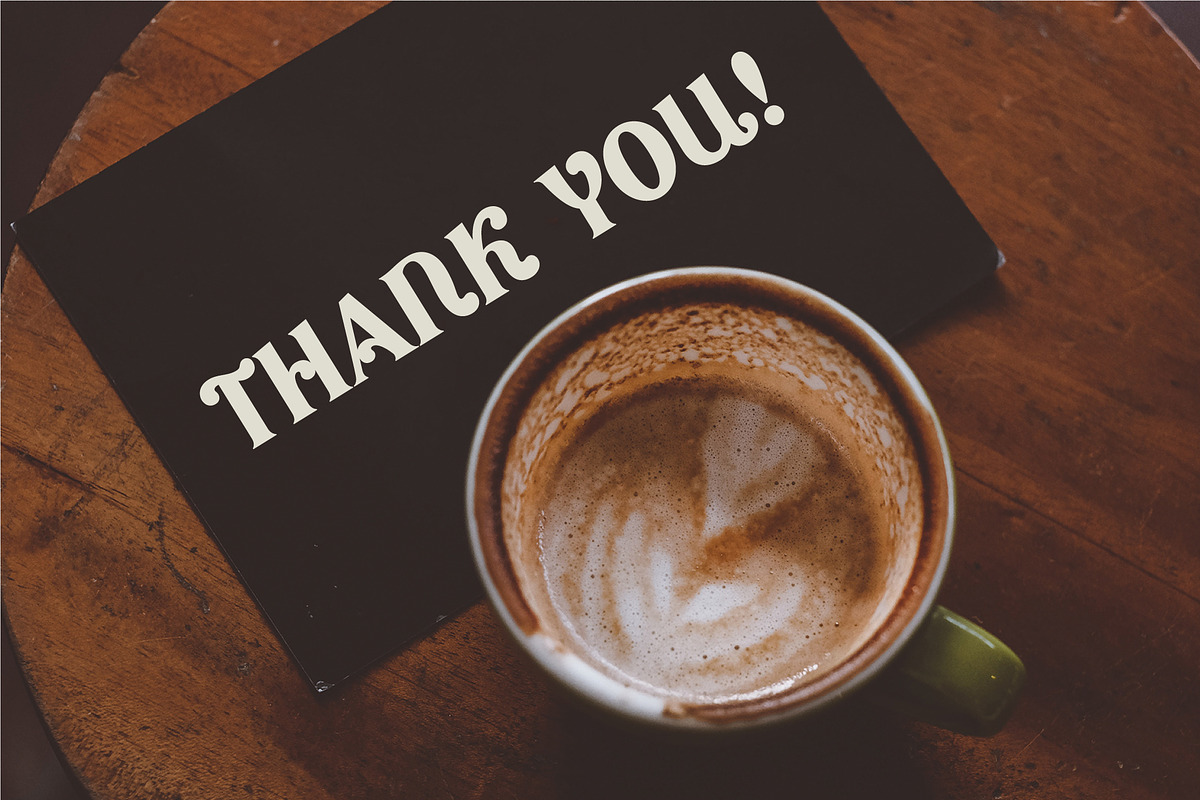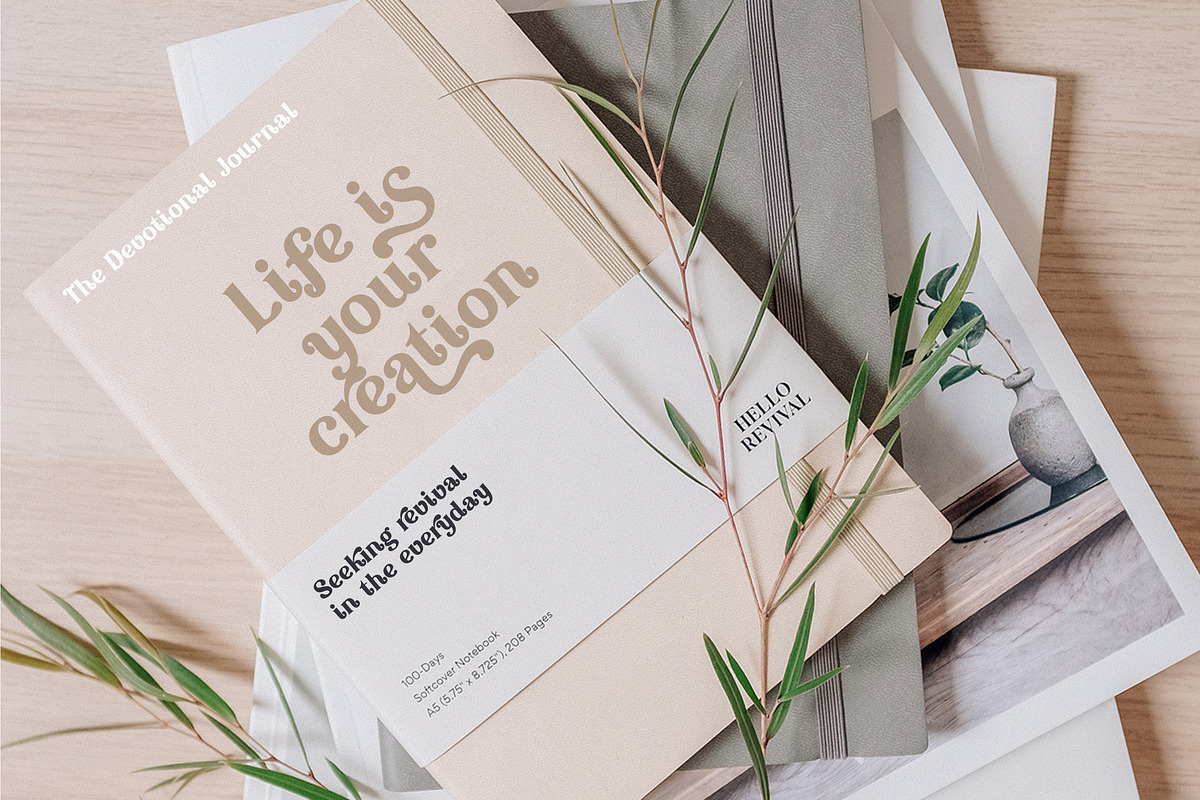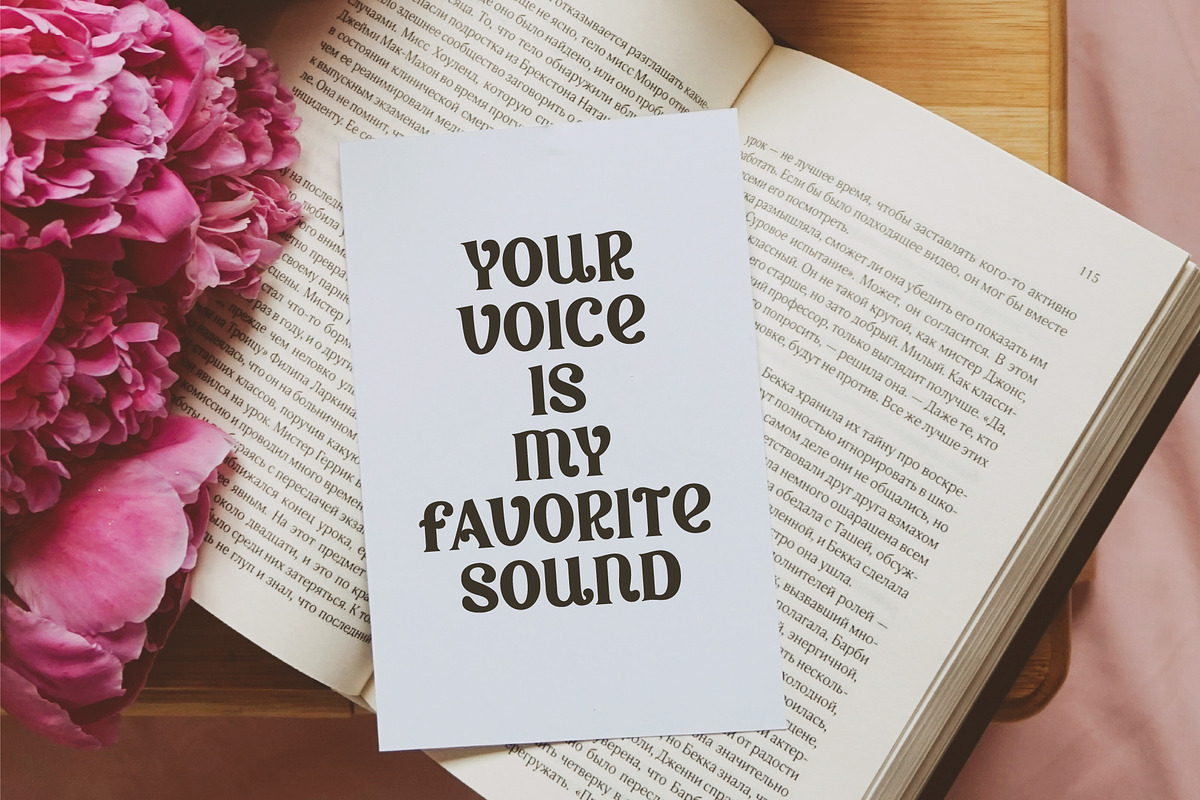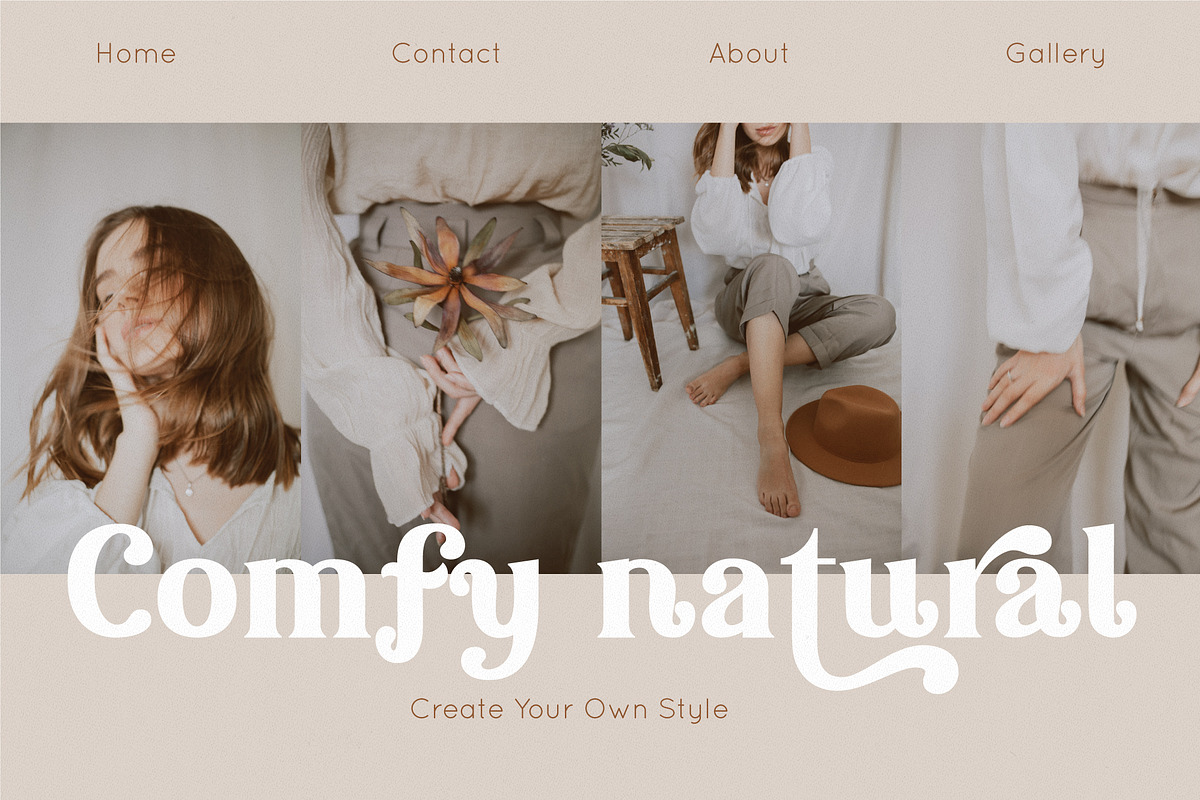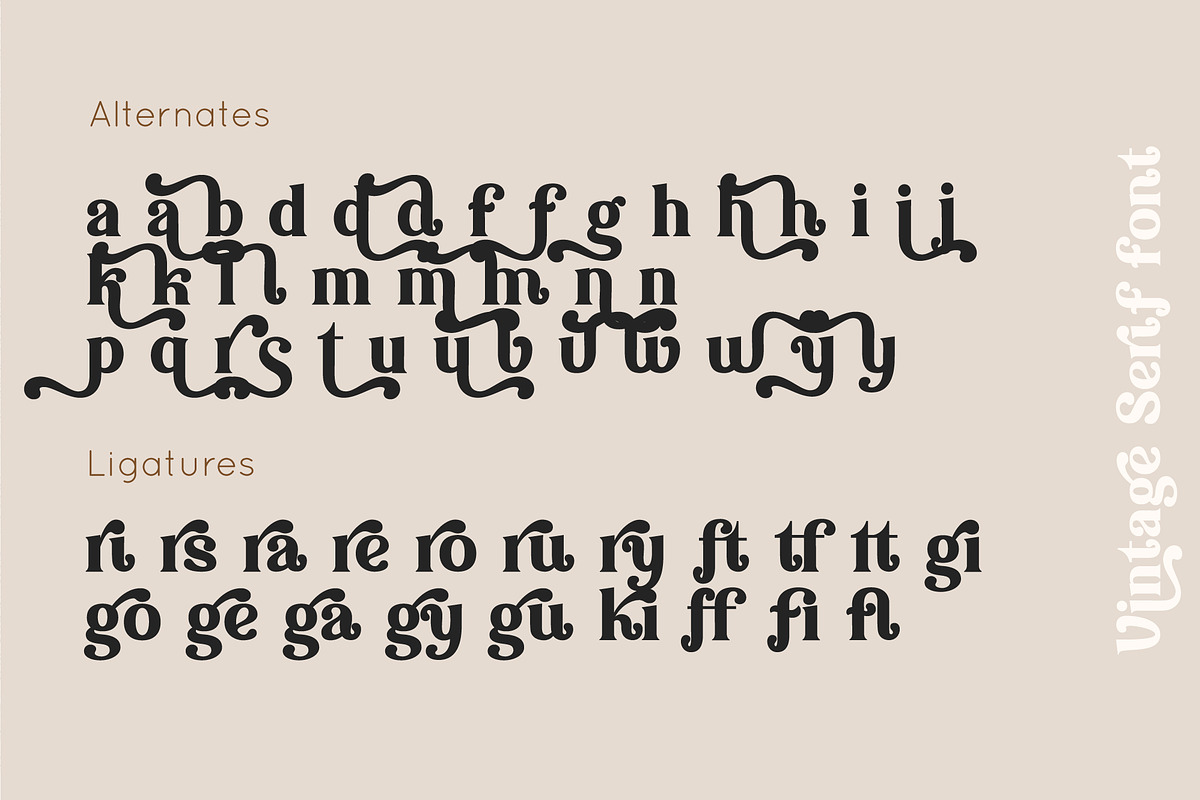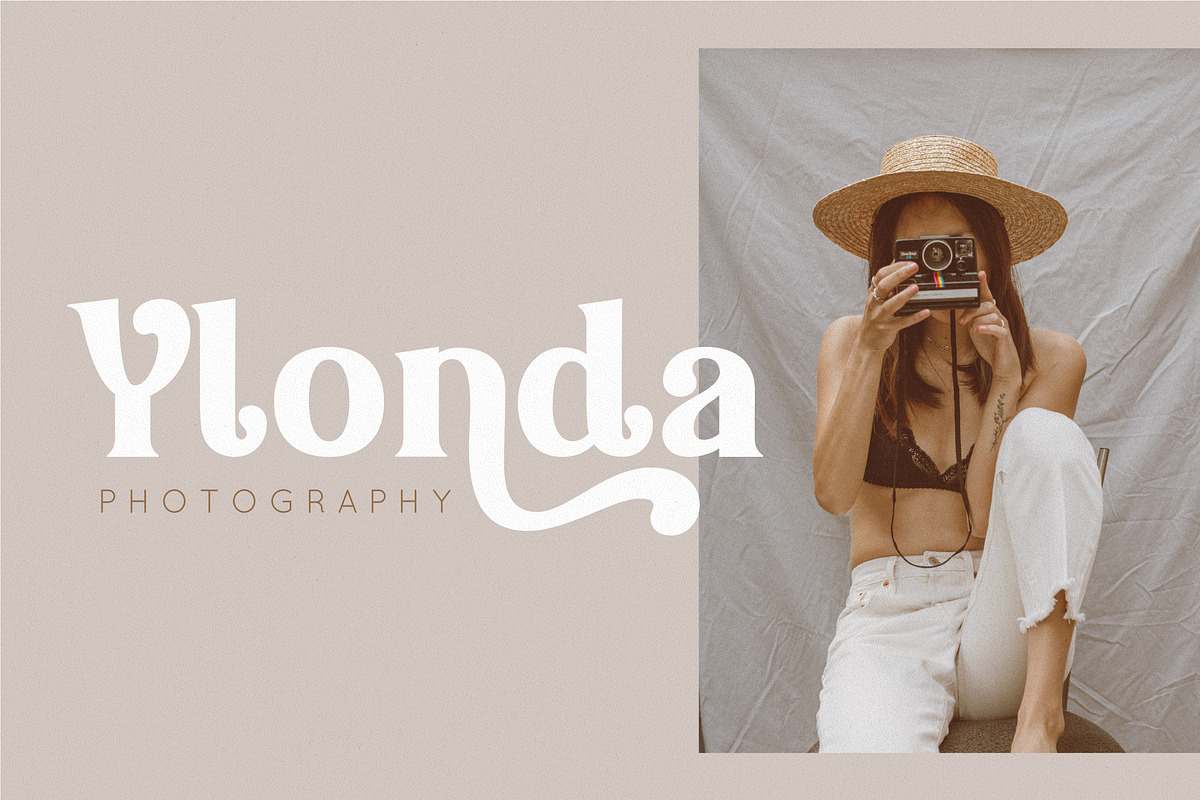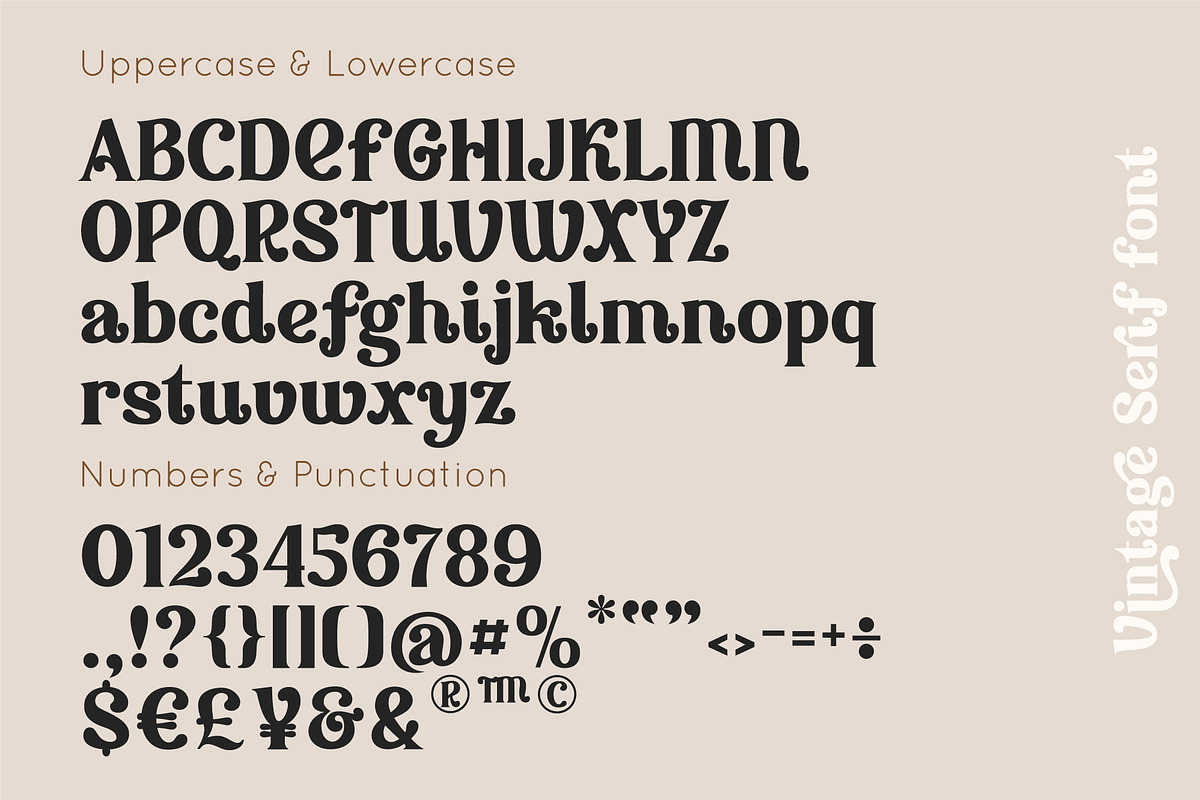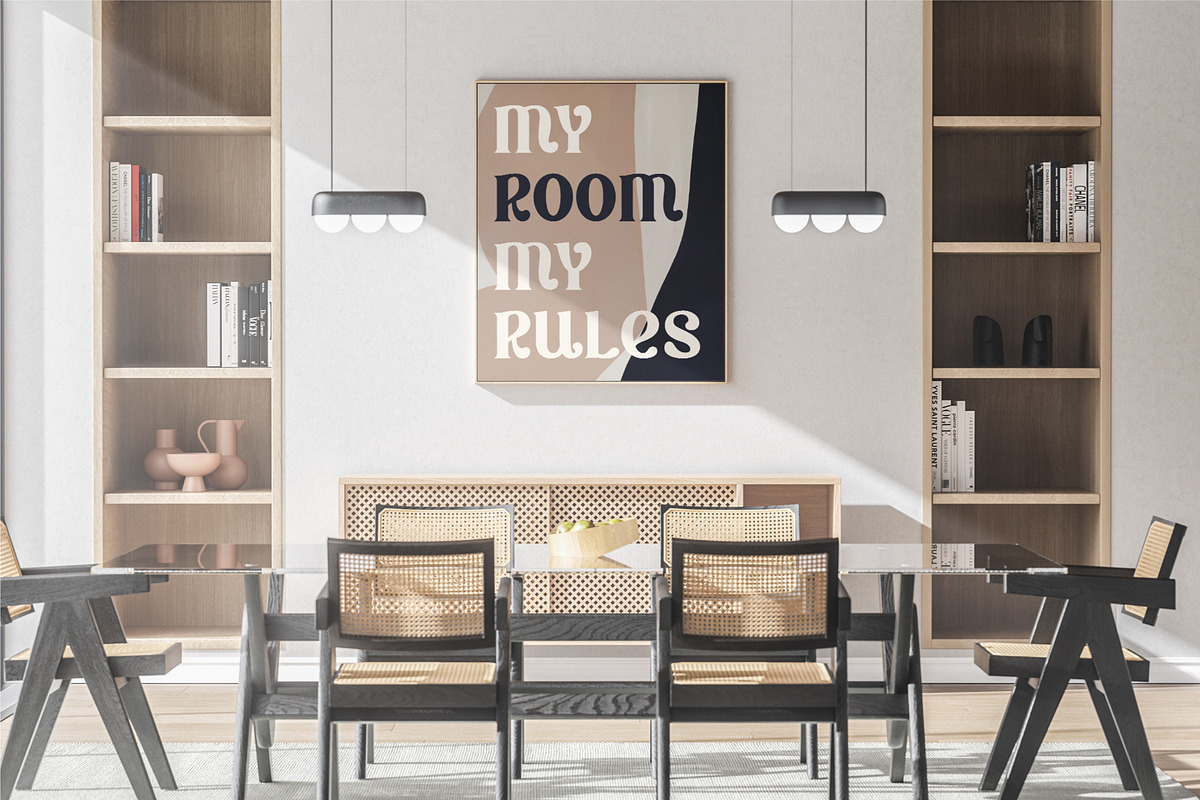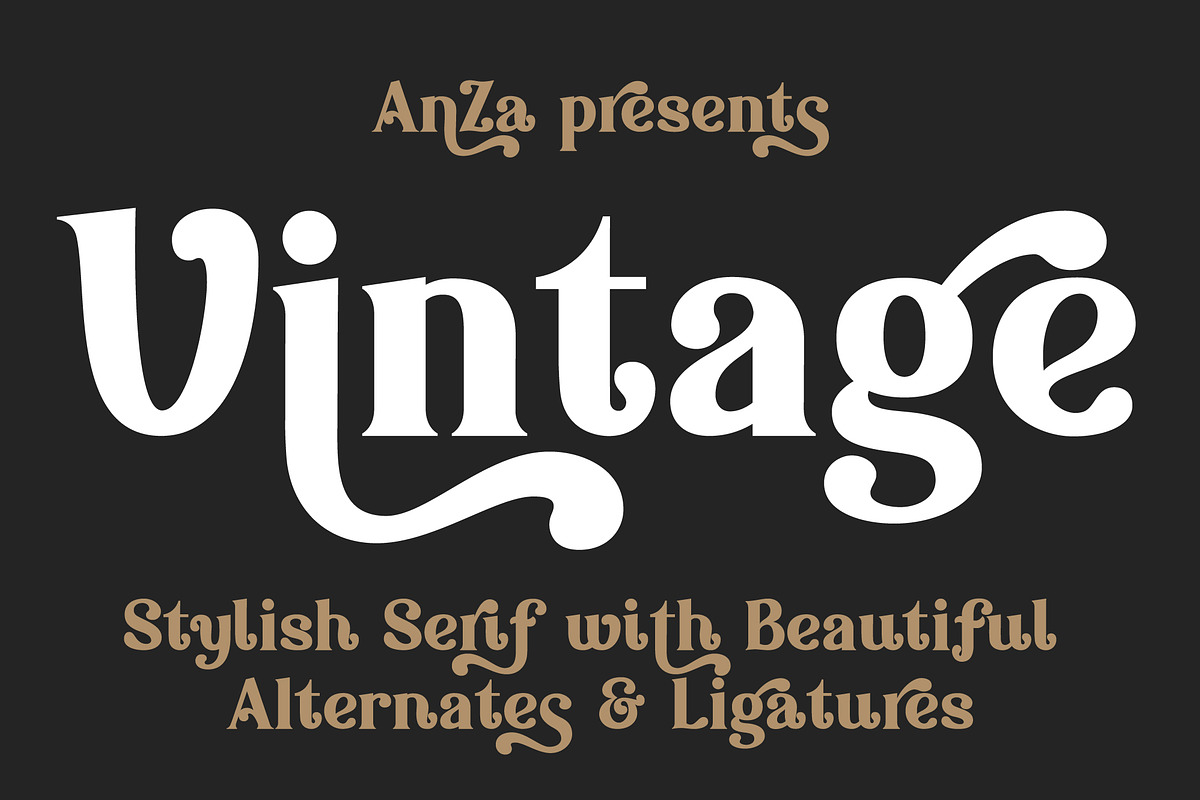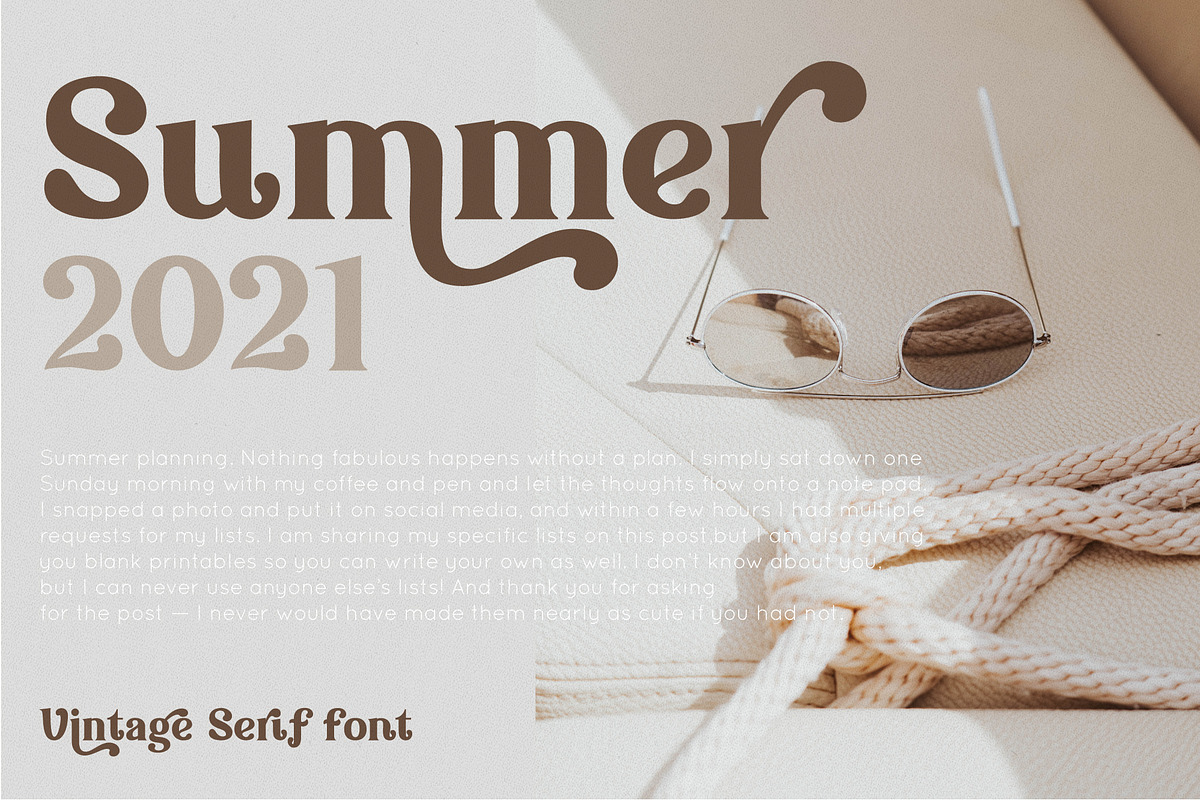
Vintage font
Introducing Vintage font - stylish retro bold display serif with beautiful alternates and ligatures. It's thick curves give a 70s groovy vibe! So modern and vintage, it is a very versatile font, covering a wide range of project types, perfect for headings, flyer, greeting cards, product packaging, book cover, printed quotes, logotype, apparel design, album covers, etc. It will give any project a touch of luxury and class. Access your OpenType features to access the large selection of alternate letters and ligatures, select the letters you like from the large variety.
Vintage font has uppercase and lowercase characters, numbers and punctuations, multilingual support (Danish, English, Finnish, French, German, German (Switzerland), Norwegian Bokmål, Norwegian Nynorsk, Portuguese, Spanish, Swedish, Swiss German).